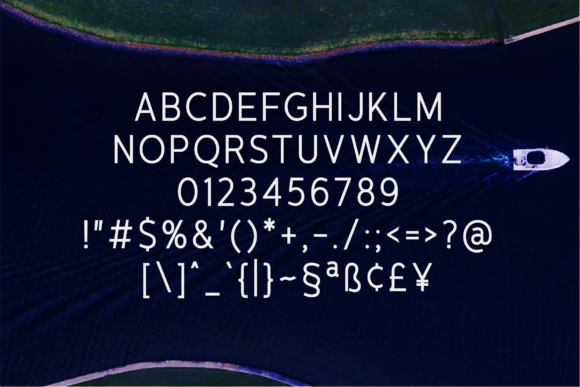
Introduction to Mensionery Bold Font
Remember that moment when you’re working on a creative project and you’re stuck on finding the perfect font to match your design? The one that will elevate your concept and make it truly stand out? For designers, the search for the ideal font is a constant quest, and we’re excited to introduce you to a game-changer: the Mensionery Bold Font.
This stunning all caps sans serif font is not just another addition to your design arsenal – it’s a high-quality resource that will bring a touch of sophistication to any layout, header, or web project. With its minimalistic and timeless aesthetic, Mensionery Bold Font is the perfect companion for designers seeking to create visually appealing and professional designs.
What sets Mensionery Bold Font apart is its versatility – it comes in ten different weights, allowing you to experiment with various styles and effects. Plus, it’s a free download, making it an accessible design resource for creatives of all levels.
Key Features of Mensionery Bold Font
- High-quality design for creative projects, ideal for use in logos, headings, and titles.
- Available in a transparent background, making it easy to overlay on any image or design.
- Includes a bold font style, making it great for headings and titles that require attention.
Honest Review: Mensionery Bold Font
I recently had the opportunity to work with the Mensionery Bold Font, and I must say it’s a game-changer for my creative projects. This high-quality font is perfect for making a statement and adding some sophistication to your designs.
One of the things that I love about Mensionery Bold Font is its versatility. It works well for both digital and print projects, and its clean lines and modern design make it a great addition to any design resource.
- High-quality design that’s perfect for making a statement
- Works well for both digital and print projects
- Clean lines and modern design make it a great addition to any design resource
- May not be suitable for projects that require a more subtle font
- Can be overwhelming if used in large quantities
Overall, I’m really impressed with the Mensionery Bold Font. It’s a high-quality design resource that’s perfect for making a statement in your creative projects. Whether you’re working on a design for a website, a brochure, or a social media campaign, this font is sure to make a lasting impression.
Tips for Getting the Most Out of Mensionery Bold Font
To get the most out of Mensionery Bold Font, use it in combination with other design elements, such as graphics and images. Experiment with different font sizes, colors, and styles to create a unique and eye-catching design. Use Mensionery Bold Font on a transparent background to create a design resource that stands out.
Mensionery Bold Font is a versatile font that can be used in a variety of design applications, including presentations, documents, and creative projects. It’s a high-quality font that’s perfect for designers who want to add a touch of elegance to their designs. Use Mensionery Bold Font to create a design resource that’s both professional and eye-catching.